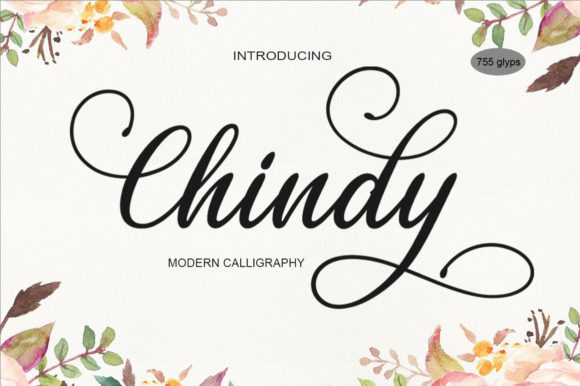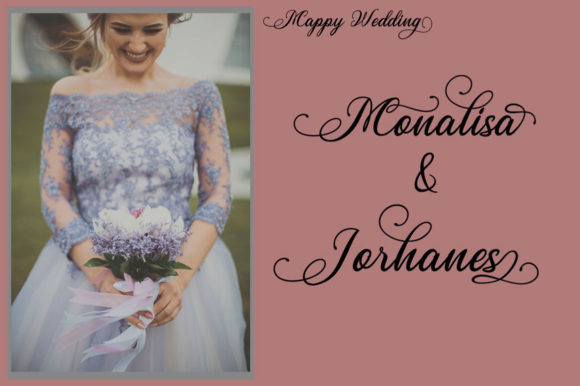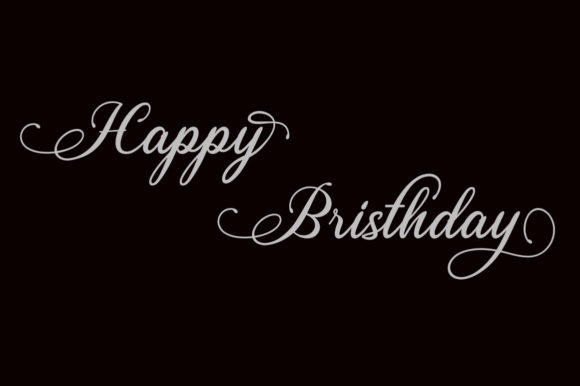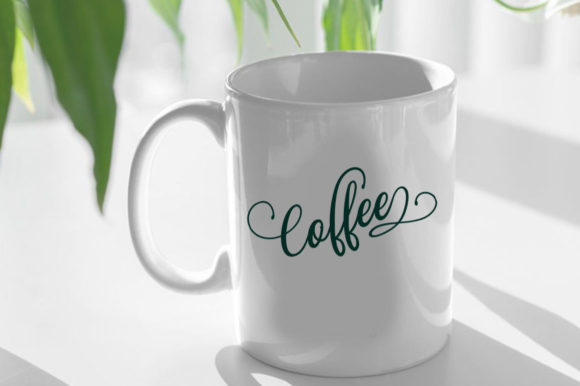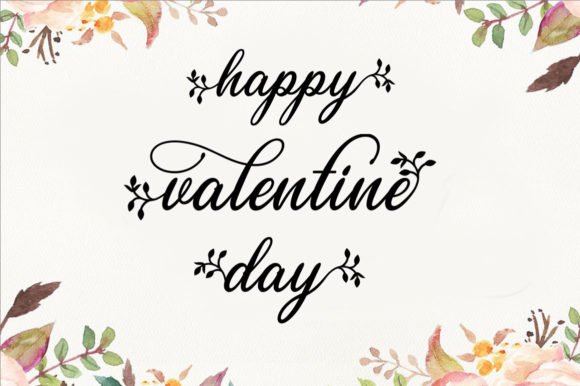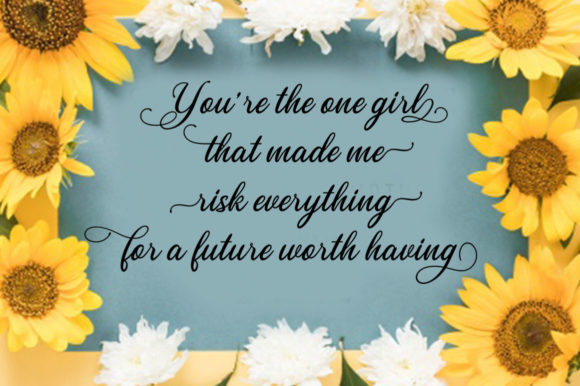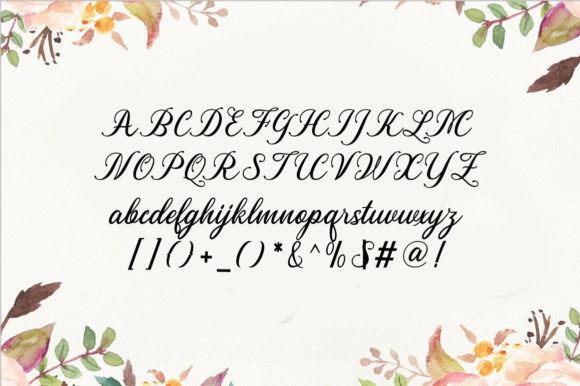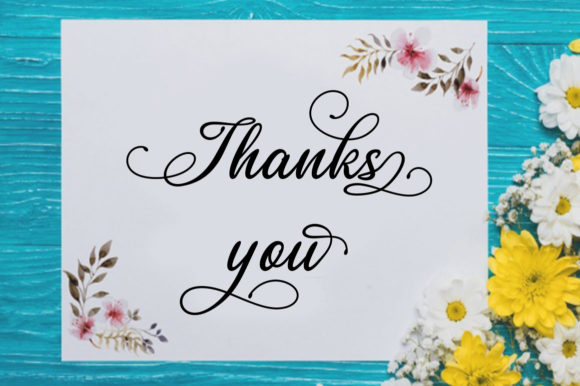
HomeScript FontsChindy Font Script Fonts Chindy Font FacebookXPinterestWhatsApp Chindy Font Poster 2 Chindy Font Poster 3 Chindy Font Poster 4 Chindy Font Poster 5 Chindy Font Poster 6 Chindy Font Poster 7 Chindy Font Poster 8 Chindy Font Poster 9 About Chindy Font Chindy features beautiful swashes and lovely ligatures, making it a one-of-a-kind handwritten font. DOWNLOAD ON CREATIVE FABRICAThis font is sold and delivered by Creative Fabrica. Font Canyon may earn a commission if you buy through this link. People also explored Morinim Beautiful Handmade Font Afiany Font Beatrixel Font The Bambank Script Font Zippin Pippin Font Female Baleon Font Ellaine Font Hallowed Eve Font Font 348 0 TagsChindy Font Previous articleThickylines FontNext articleShahira Font LEAVE A REPLY Cancel reply Comment: Please enter your comment! Name:* Please enter your name here Email:* You have entered an incorrect email address! Please enter your email address here Website: Save my name, email, and website in this browser for the next time I comment. Personal Use Free Boldace Personal Use Free Read more about this font Lion Teen Personal Use Free Read more about this font New Normal Personal Use Free Read more about this font Christmas Diary Personal Use Free Read more about this font BLOG To increase your work productivity, choose the most readable fonts. In today's fast-paced work environment, where digital communication and information consumption are integral to our daily routines, the choice of fonts can significantly impact... Exploring Font Trends 5 Fonts That Will Dominate Design Trends in 2026 Transform Your Website: Elevate Your Typography with 7 Best Web Font Generators